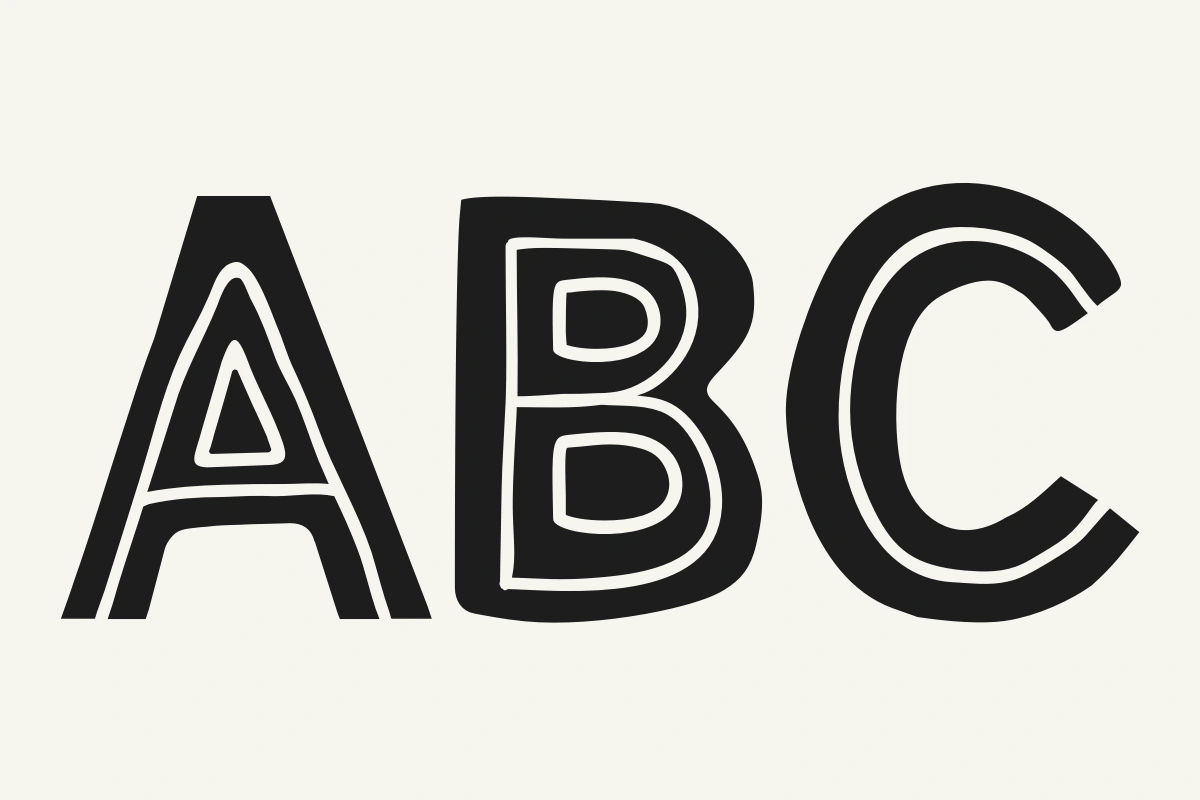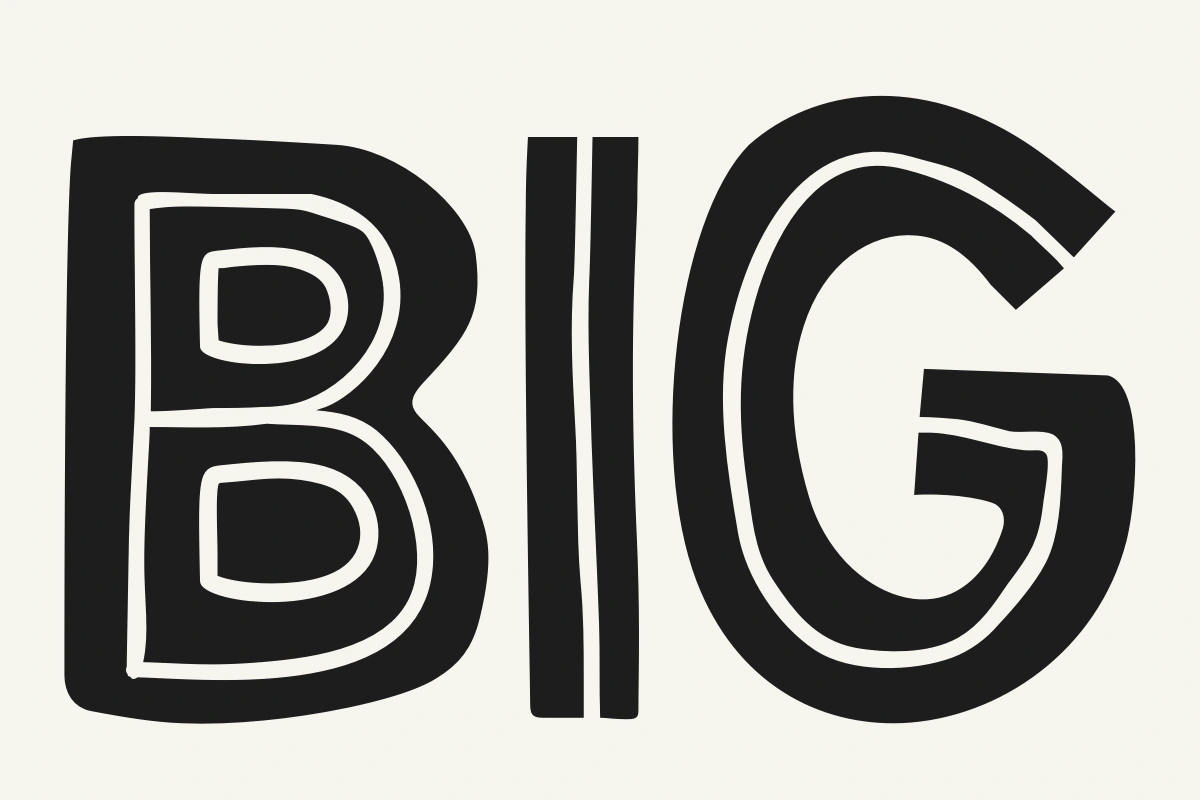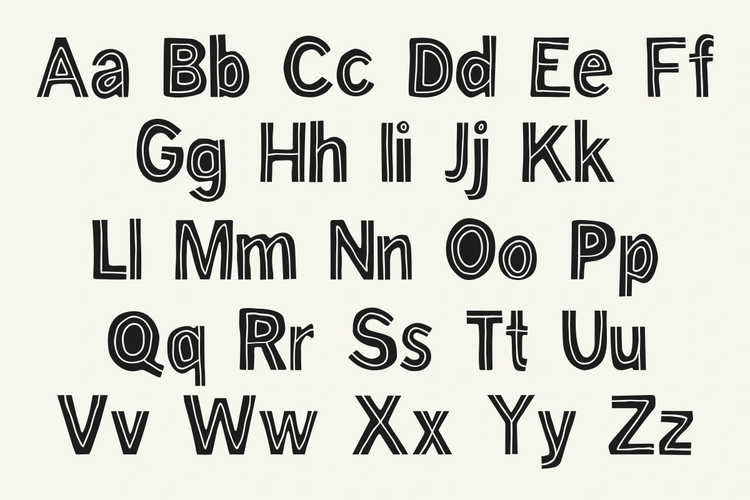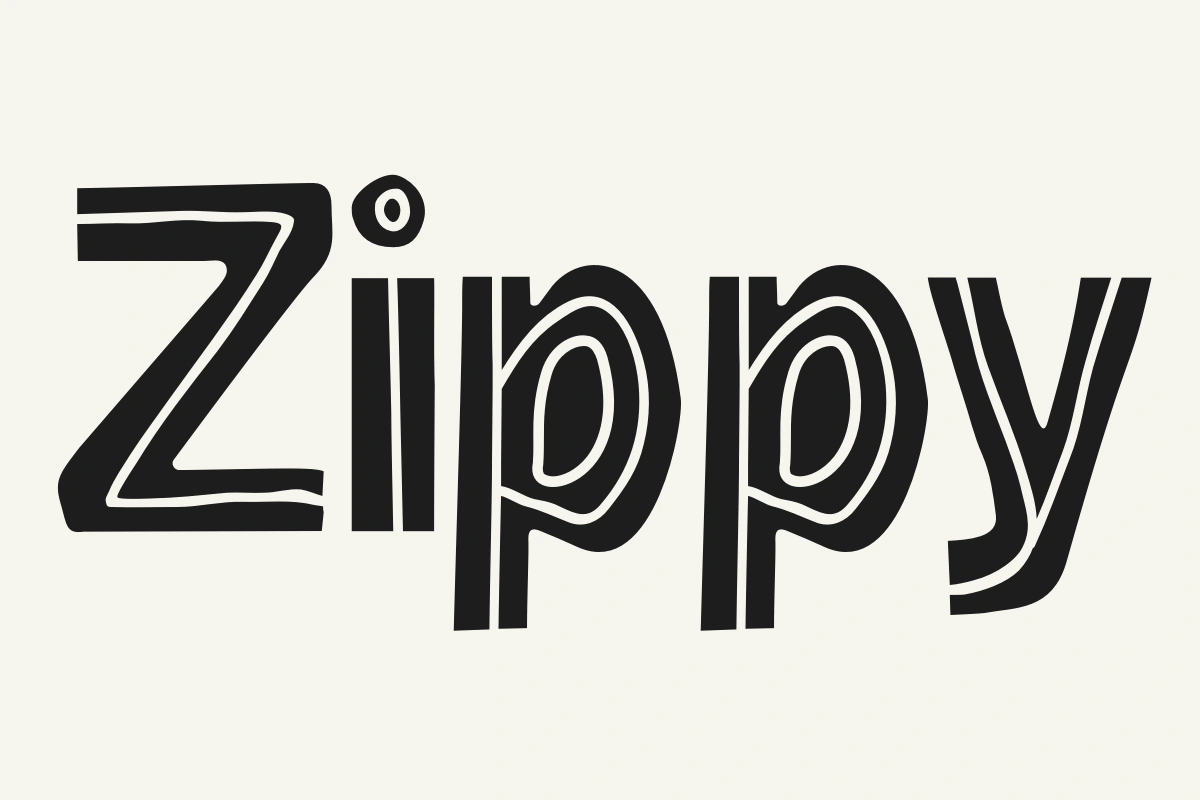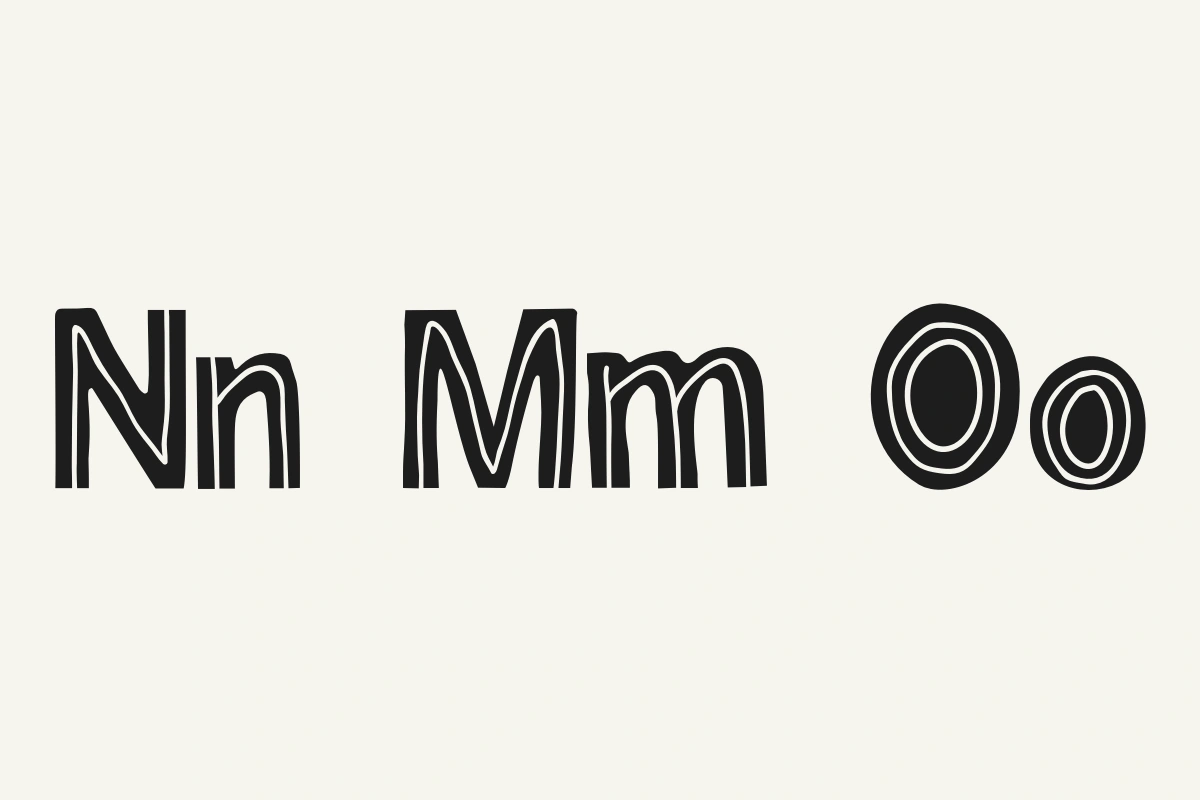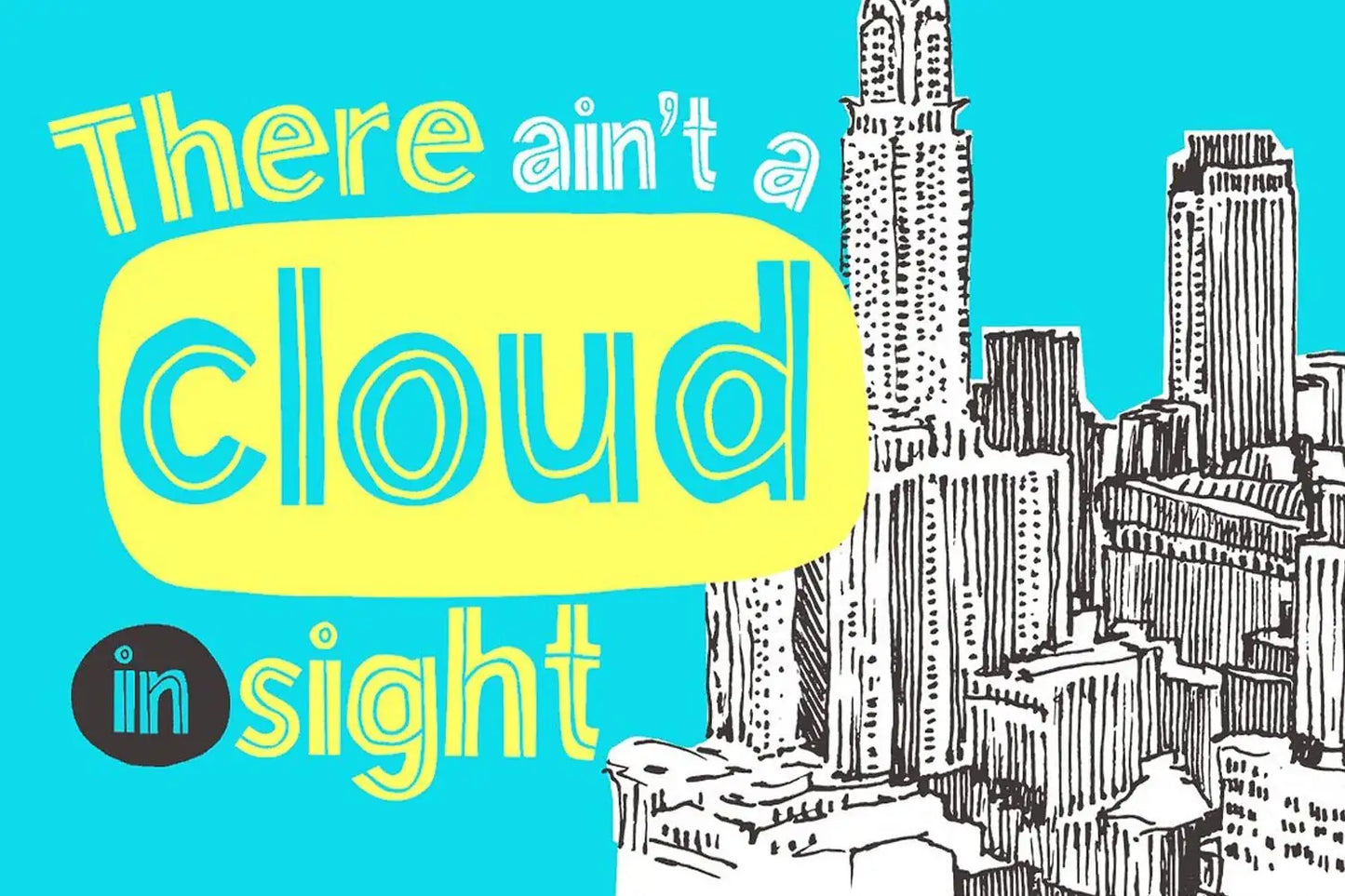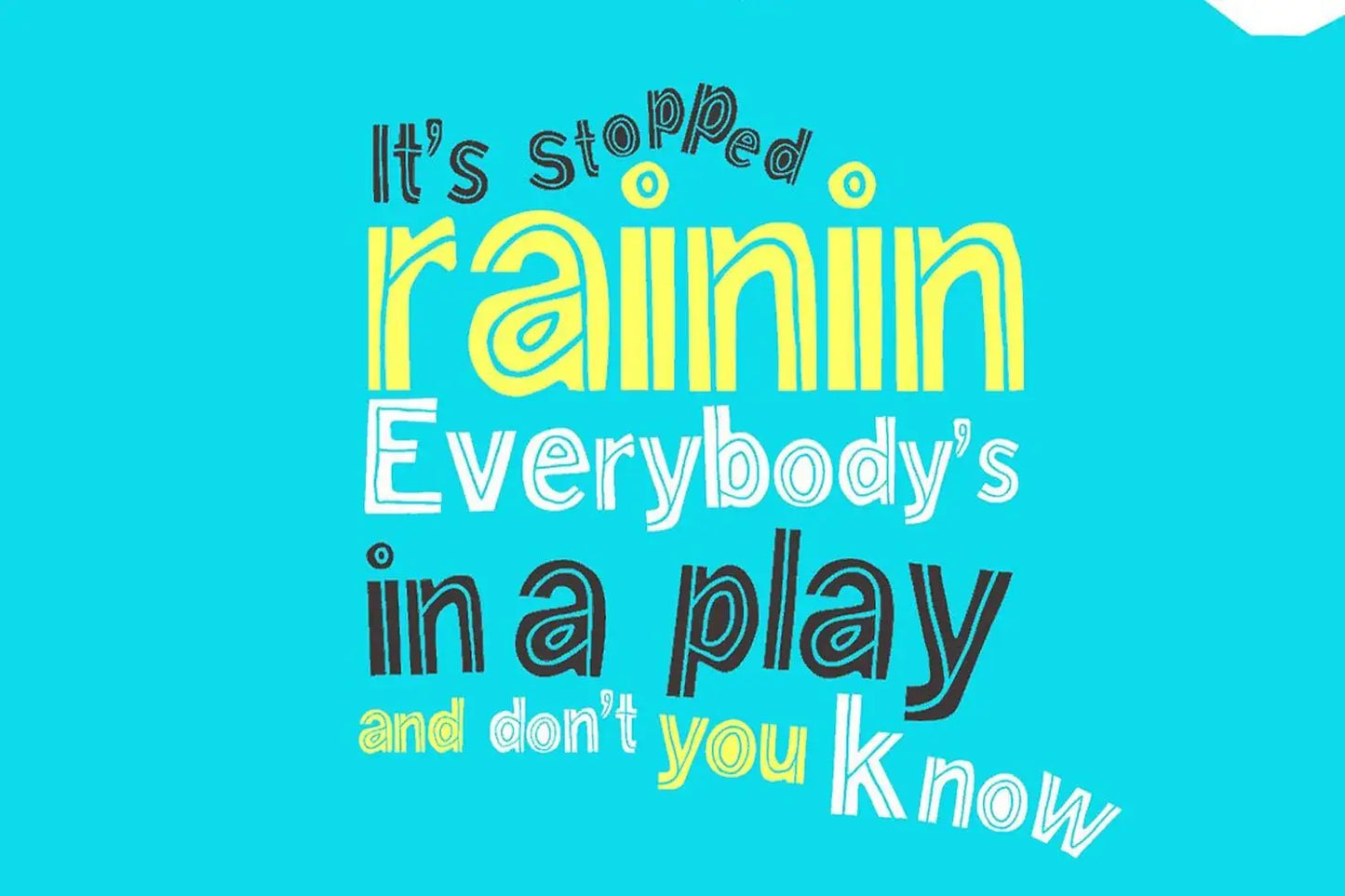
Mr Blue Sky — Fun Bold Display Font
Buy Mr Blue Sky, a handmade Gothic sans-serif display font with quirky character for bold headlines, logos, posters and packaging.
About Mr Blue Sky
Mr. Blue Sky is a rad Gothic sans-serif display typeface, all handmade and ready to bring some quirkiness and fun to your designs.
You can go big with it, perfect for headlines, logos, posters, and packaging, but honestly, it's flexible enough to tackle any design challenge.
Mr Blue Sky font name
The name Mr. Blue Sky for this font comes straight from the catchy tune by Electric Light Orchestra (ELO). You know the one that makes you tap your foot and smile?
It's like a musical dose of positivity that can turn any frown upside down. So, if you haven't already, give it a listen and let the good vibes flow!
If Mr. Blue Sky were a celebrity
It might just be Pharrell Williams, known for his infectious (some say annoying) hit song "Happy." He exudes a sense of enthusiasm and optimism that resonates with people of all ages, just like the Mr. Blue Sky font.
Designer: Simon Stratford